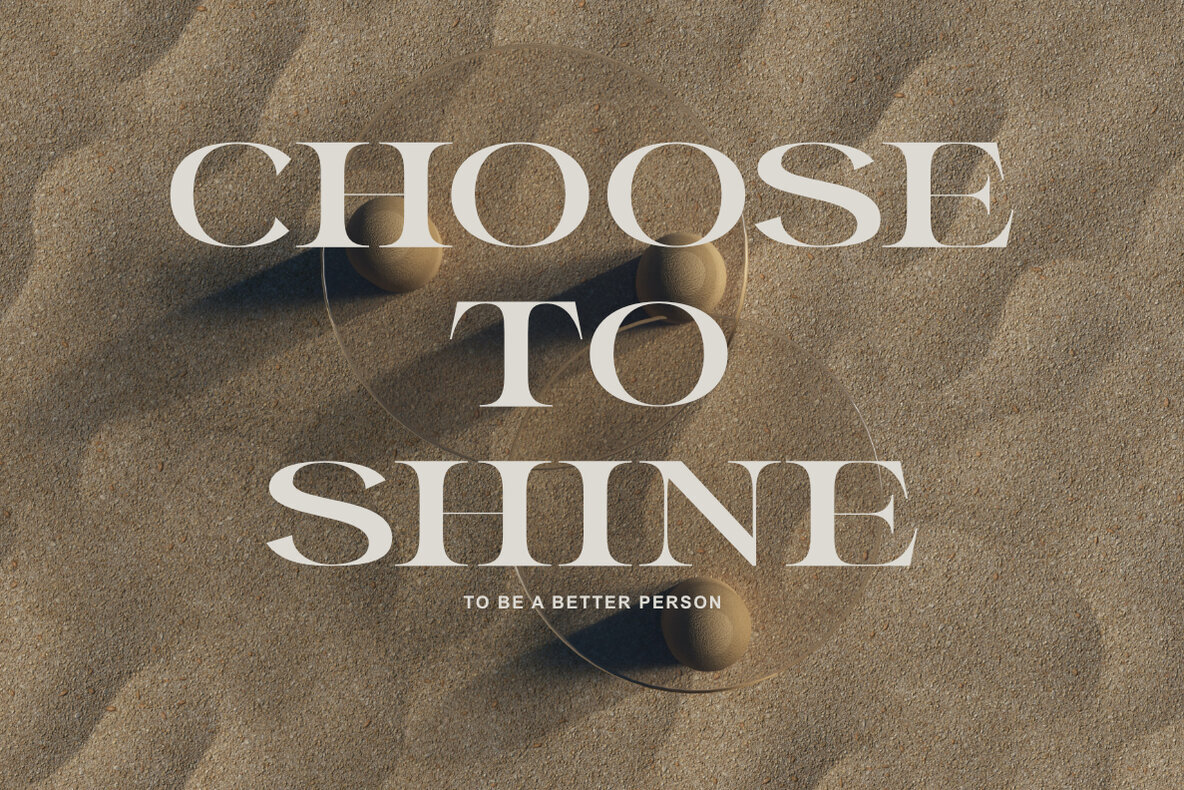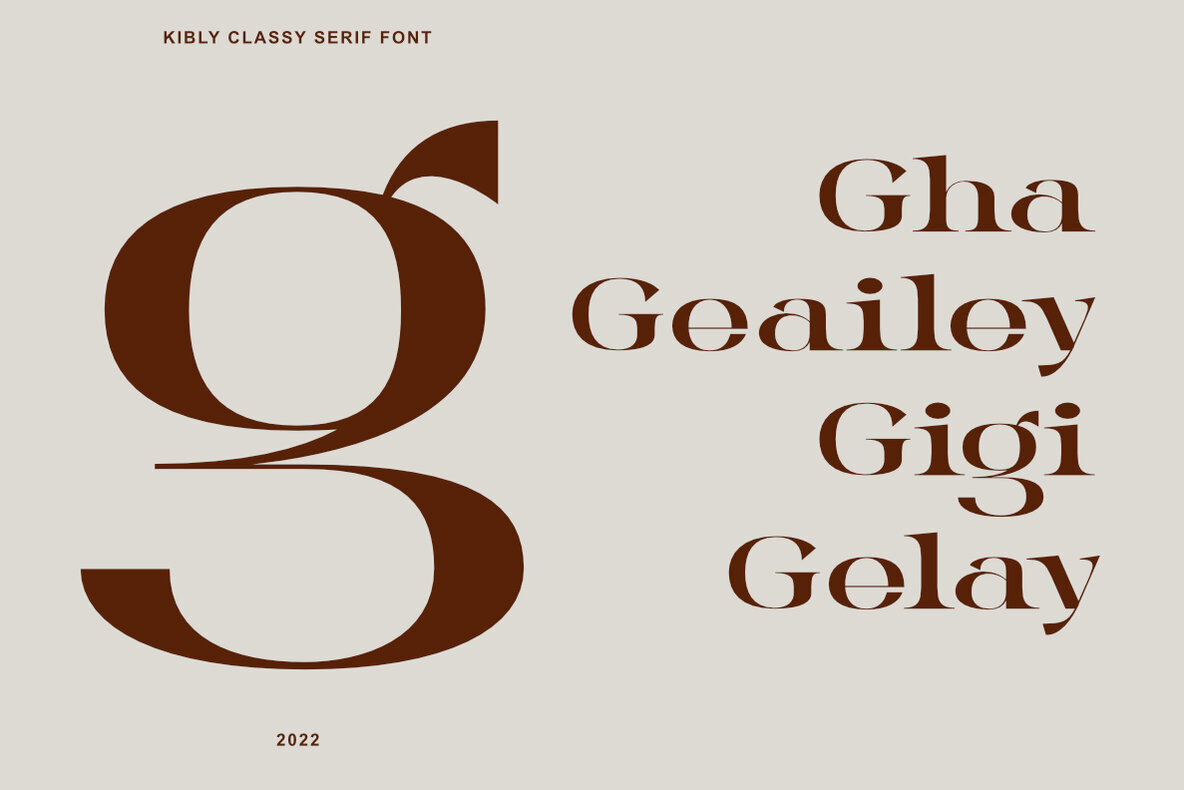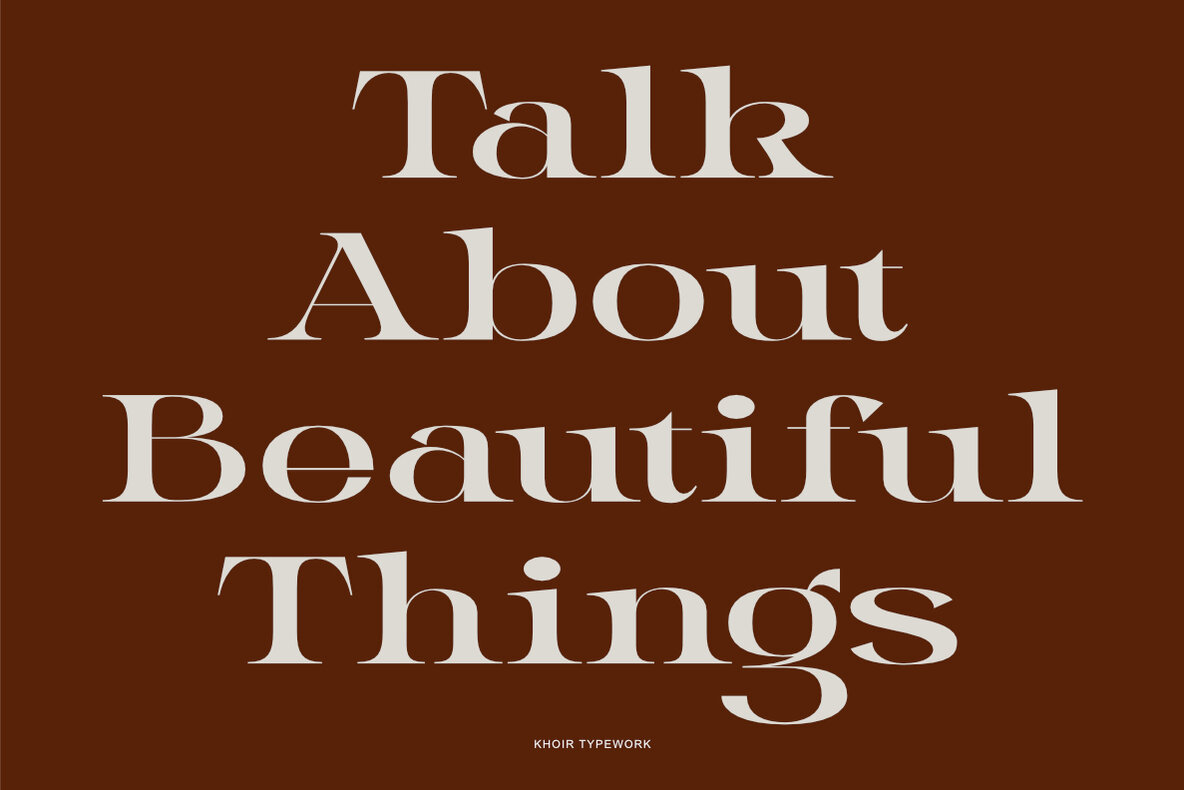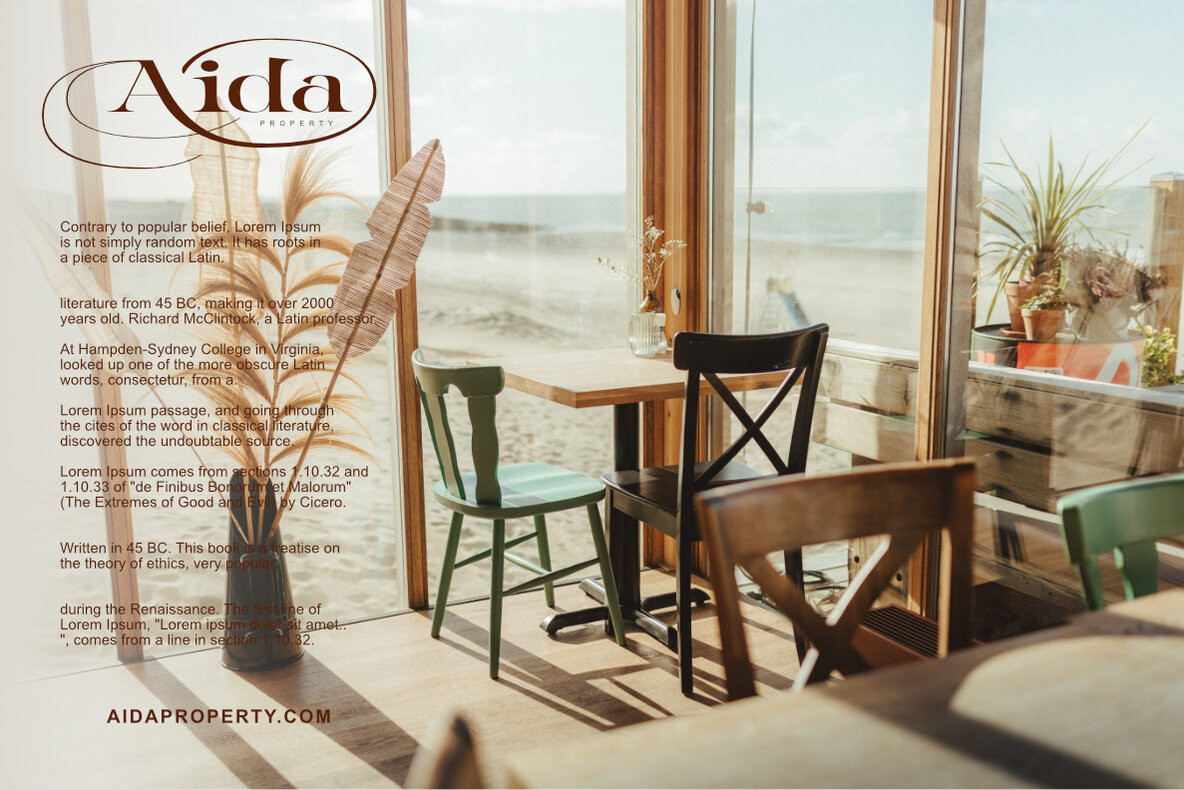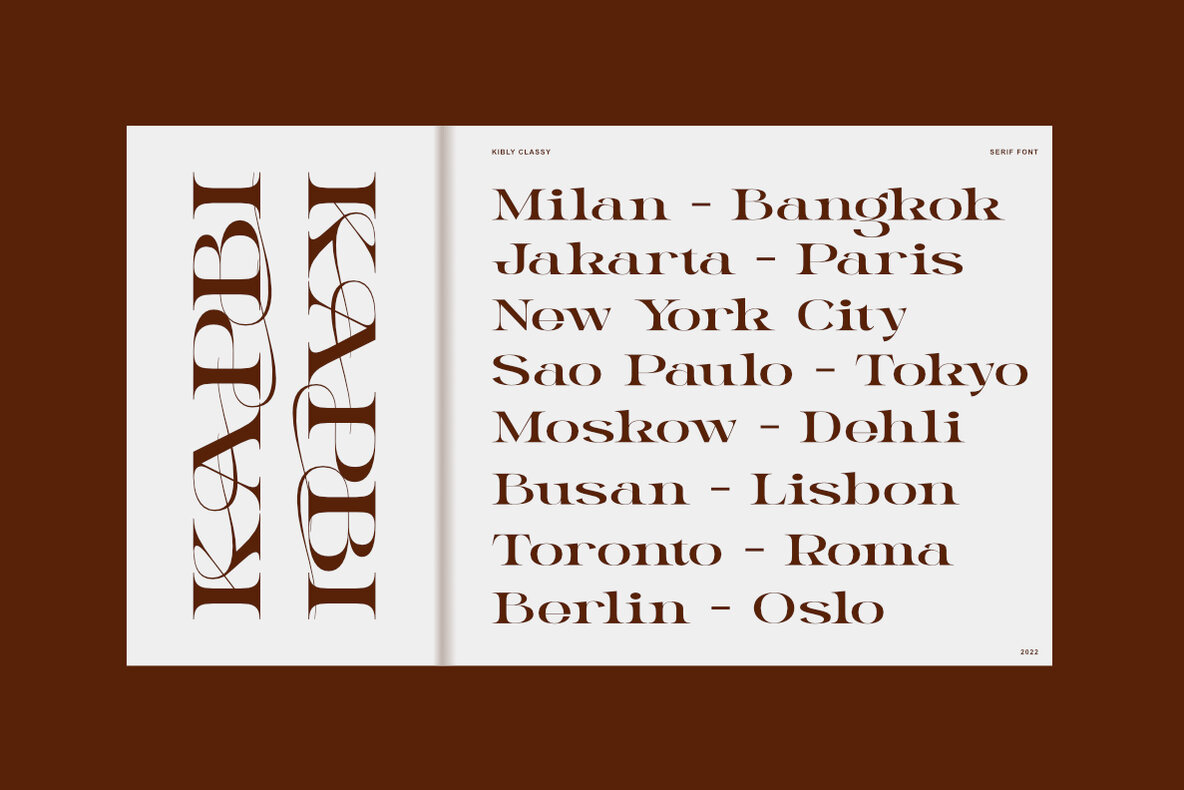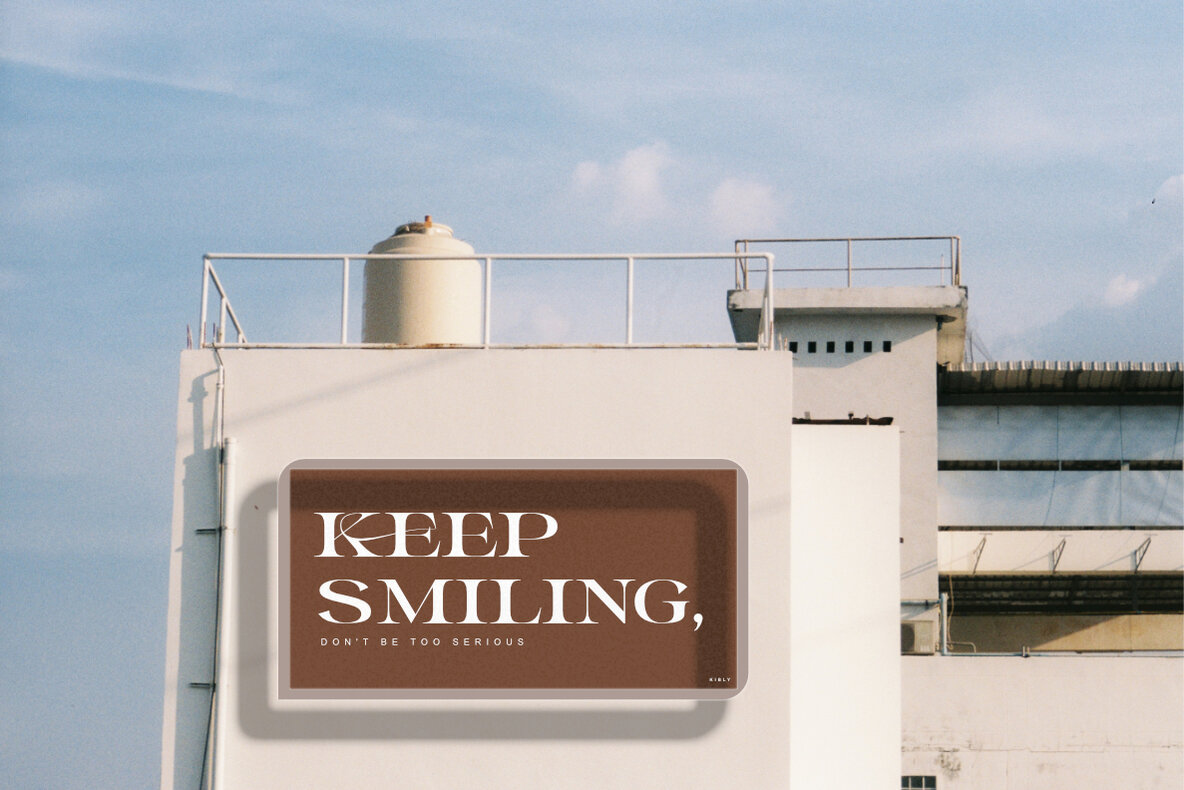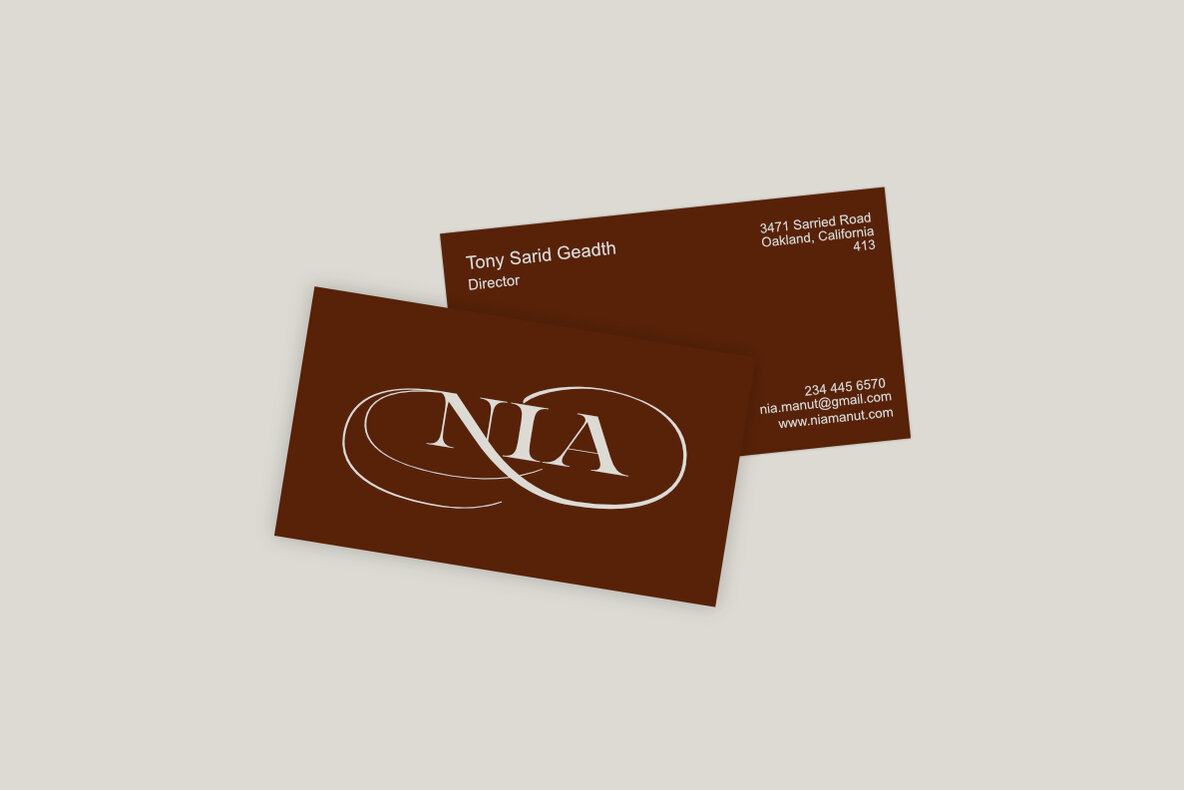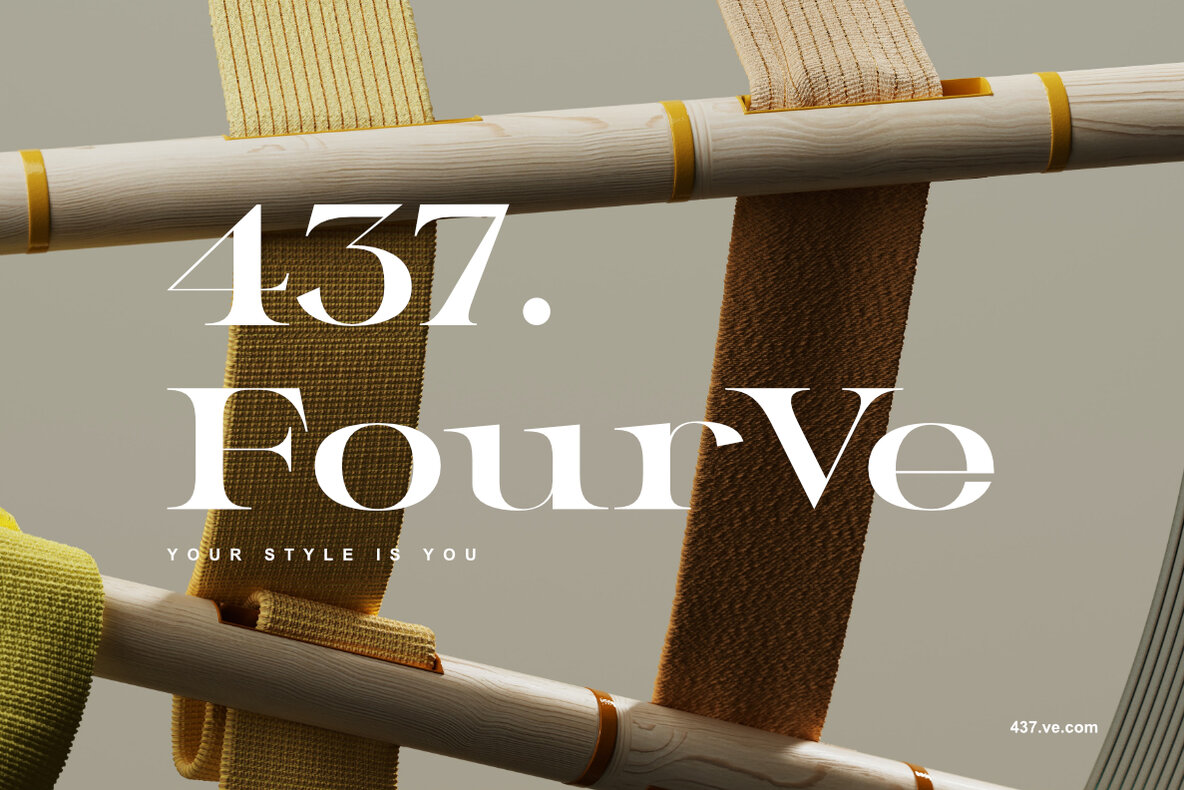
Kibly Font
Kibly Regular
Kibly is a distinctive serif font characterized by its clean, elegant lines and gracefully curved serifs. Ideal for logo designs, titles, posters, and business cards, Kibly offers a touch of sophistication and refinement to any branding project. Its versatility makes it suitable for a variety of applications, including multilingual projects.Kibly: Elegant Serif Font for Versatile Branding